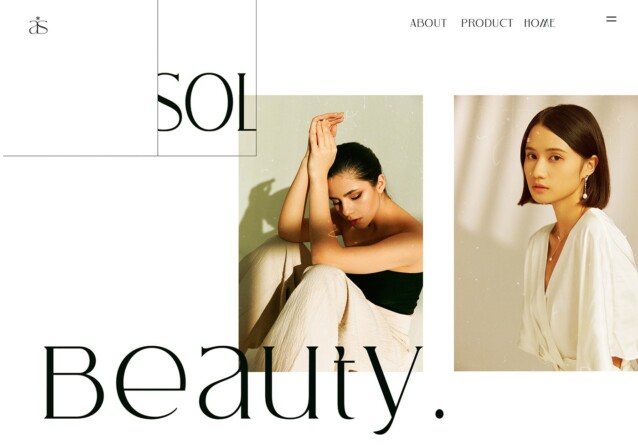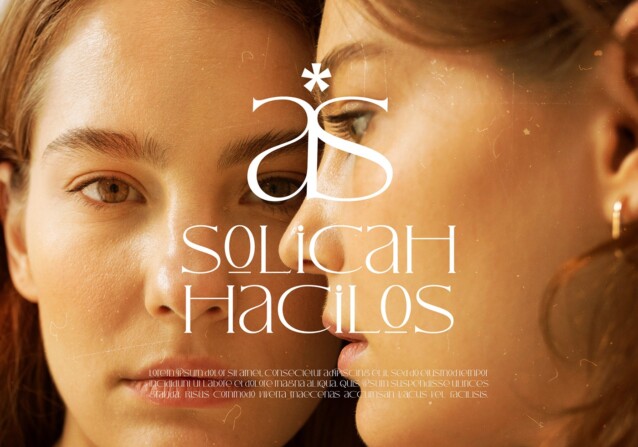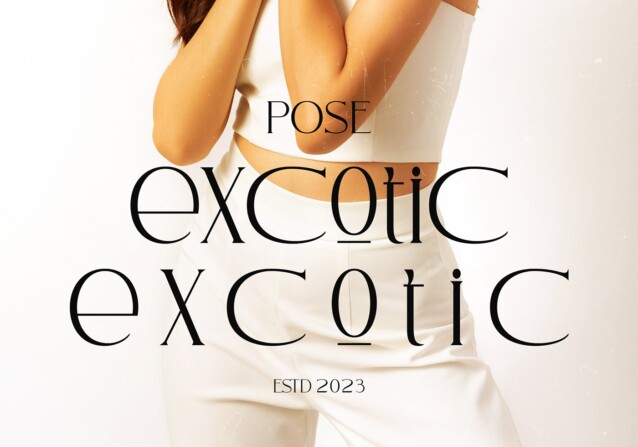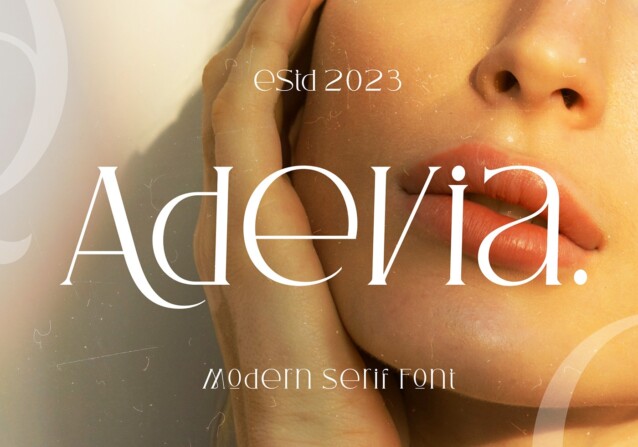
Adevia Font
Adevia Font is a balanced, smooth, elegant and stylish serif typeface. This font is specially designed to meet the needs of designers looking for an elegant handwriting style with a modern touch.
You can present an impression of unrivaled luxury in each of your design creations. Add a touch of elegance to your projects and create unforgettable masterpieces with this font. Get “Adevia” now and explore your creativity with more style.